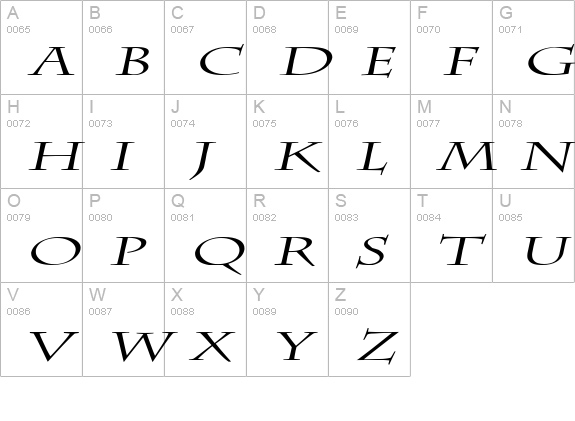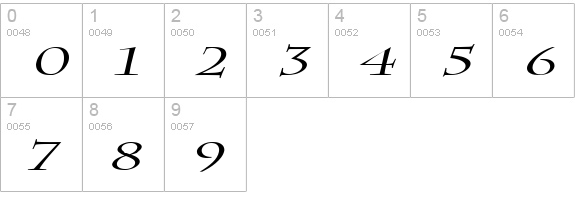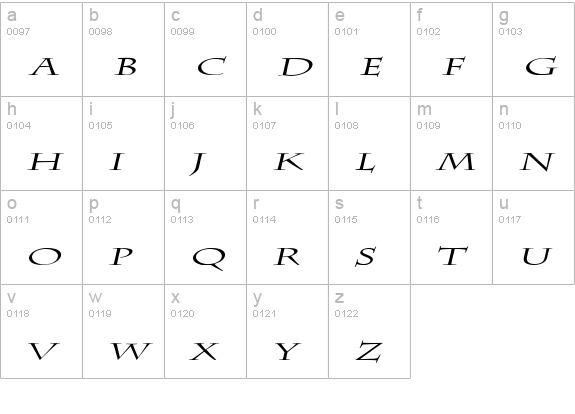
Chaz Extended Italic Font Details
Chaz Extended Italic is a distinctive, extended-width, italic variant in the Chaz typeface family \xE2\x80\x94 well suited to design and typography projects.
Chaz Extended Italic font is a sleek and stylish typeface that exudes elegance and sophistication. Its elongated letterforms and italicized design add a touch of flair to any project, making it perfect for creating stunning headlines, titles, and branding materials. This font is not only visually striking but also versatile, making it suitable for a wide range of design applications. Whether you're working on a magazine layout, website design, or advertising campaign, Chaz Extended Italic will elevate your work to the next level. The best part? Chaz Extended Italic font is completely free to download at FontsMarket.com. So go ahead and enhance your designs with this beautiful typeface today!